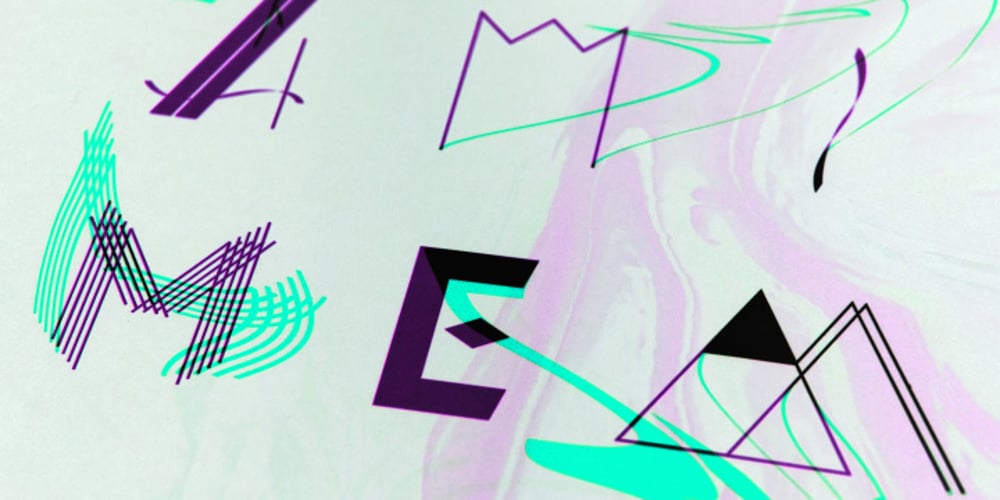
MeM Font Family was designed by Jakob Runge, Elena Schädel and published by 26+. MeM contains 1 styles and family package options. MeM is an eccentric experimental type system created by Elena Schädel and Jakob Runge in 2012. It produces many personalities, each individual and emotive. You will never know which of the alternating letters is going to occur next. Basically, at the heart of it all is MeM: four different weights and letter shapes melded together into one powerful font and shuffled with the sleek usability of OpenType.